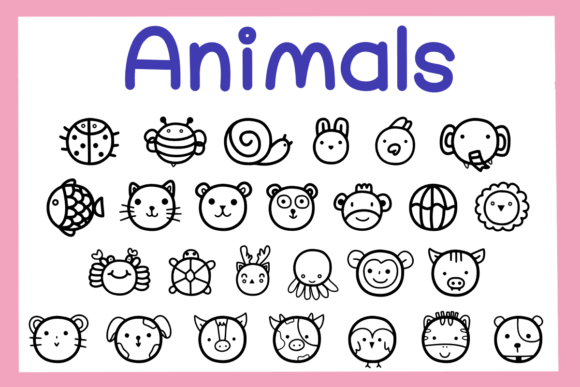
Bring Joy to Your Designs with Animals Font
Have you ever stared at a blank page, searching for the perfect element to make your design pop? That’s exactly where I was when I stumbled upon the adorable Animals Font. Its hand-drawn dingbats are the perfect addition to any creative project, and I’m excited to share its charm with you.
Animals Font is a delightful font designed specifically for adding a personal touch to planners, crafting, digital designs, presentations, and more. Its cute and playful style makes it a valuable asset for designers looking to bring joy and whimsy to their work. Whether you’re creating greeting cards, worksheets, or simply want to add a fun twist to your digital designs, Animals Font is the perfect companion to help you stand out from the crowd.
- Unique Characteristic: Animals Font features a distinctive, hand-drawn design with intricate details, making it perfect for creating whimsical and playful designs.
Designer Review: Animals Font
Overall, I think the Animals Font is an interesting choice for those who want a unique touch in their designs. Here are some things that work well:
- ✨ Unique character set: The font features a range of animals, which can add a playful touch to designs.
- ✨ Good for children’s content: The whimsical nature of the font makes it a great choice for children’s books, websites, or other content aimed at a younger audience.
However, there are also some limitations:
- ⚠️ Limited language support: The font may not be suitable for designs that require a wide range of languages, as it is primarily designed for English and other Western languages.
- ⚠️ Limited customization options: While the font is customizable, the options are limited, and users may find themselves constrained in terms of font size, color, and style.
- ⚠️ Not suitable for formal designs: The playful nature of the font makes it unsuitable for formal designs, such as business reports or academic papers.
Overall, I think the Animals Font is a fun and quirky choice for designers who want to add a bit of whimsy to their designs. However, it’s essential to consider the limitations and potential drawbacks before using it in a project.
To get the most out of the Animals Font, use it sparingly and in creative ways, such as for headings, titles, or emphasis. You can also combine it with other fonts to create a unique and eye-catching design.
The Animals Font is ideal for:
- Children’s book covers and illustrations
- Wildlife-themed marketing materials
- Education and science projects
- Fun and playful branding
Alternatives to Animals Font
Great Vibes is a handwritten font that can be used for various purposes such as logo designs, invitations, and social media graphics. It is ideal for adding a personal touch to your designs.
Compared to Animals Font, Great Vibes Font has a more casual and creative feel. While Animals Font is more suitable for children’s content, Great Vibes Font can be used for a wider range of audiences.
Pacifico is a beautiful, elegant script font that can be used for wedding invitations, packaging, and branding. It is ideal for designs that require a touch of sophistication and elegance.
Pacifico Font is more formal and polished compared to Animals Font. While Animals Font is playful and fun, Pacifico Font is more suitable for formal events and high-end designs.
Carolyna Pro is a modern, elegant script font that can be used for branding, packaging, and advertising. It is ideal for designs that require a touch of sophistication and elegance.